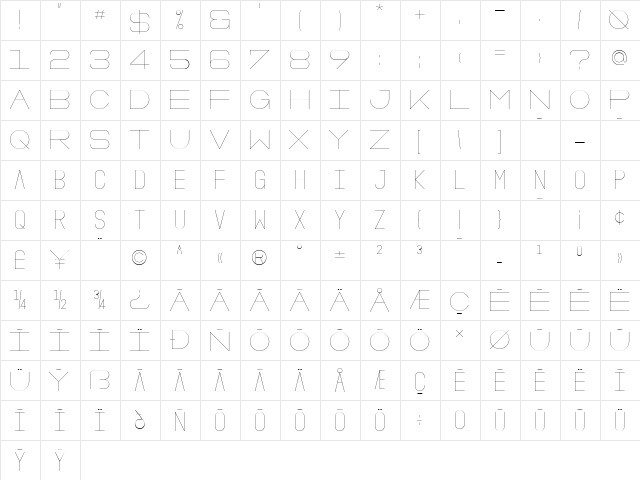
Oslo Regular
| Foundry | Antonio Rodrigues Jr |
| Designer | Antonio Rodrigues Jr |
Design Context for Oslo Typeface
Oslo is a composed and adaptable typeface that performs quietly and consistently across a wide range of design contexts.